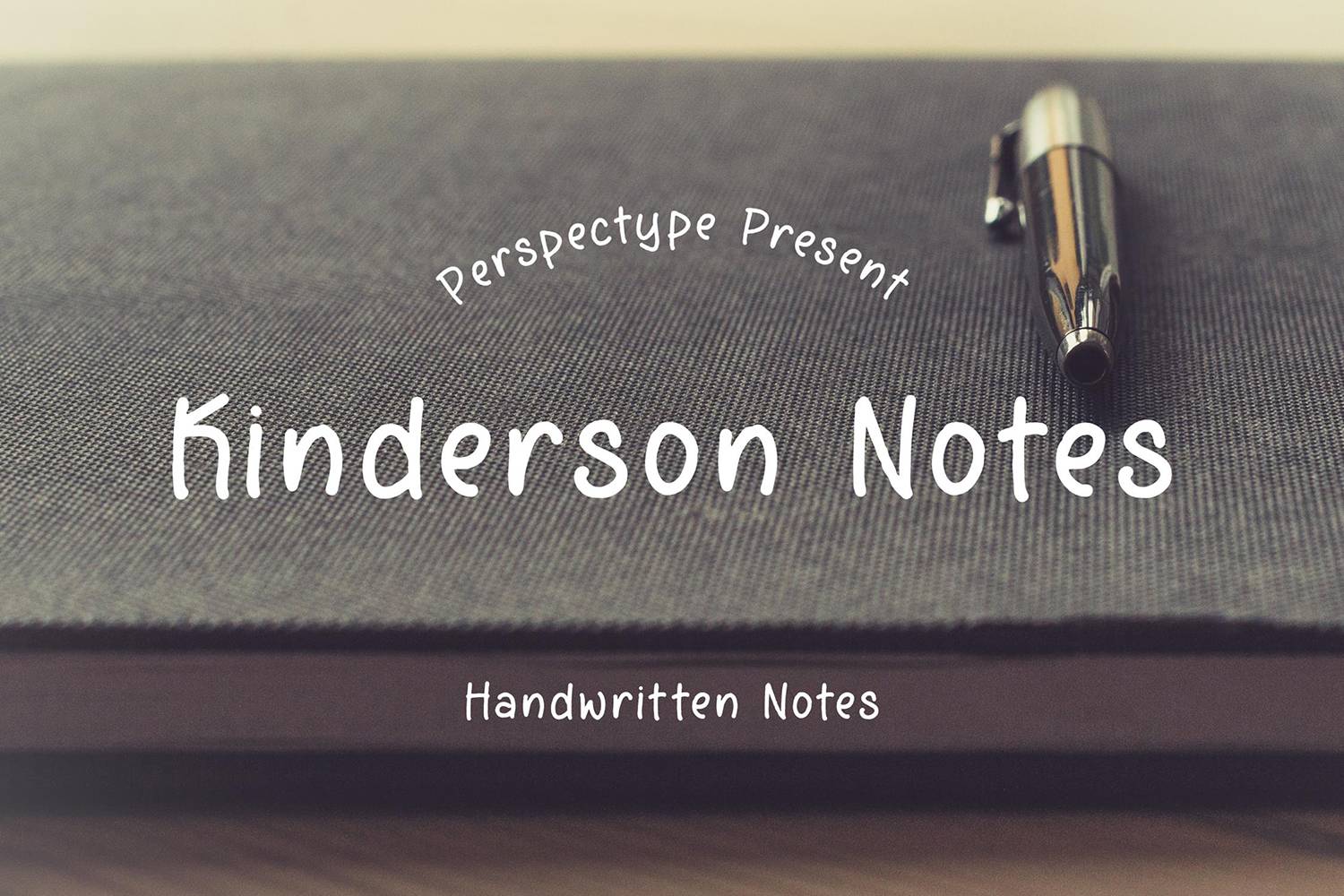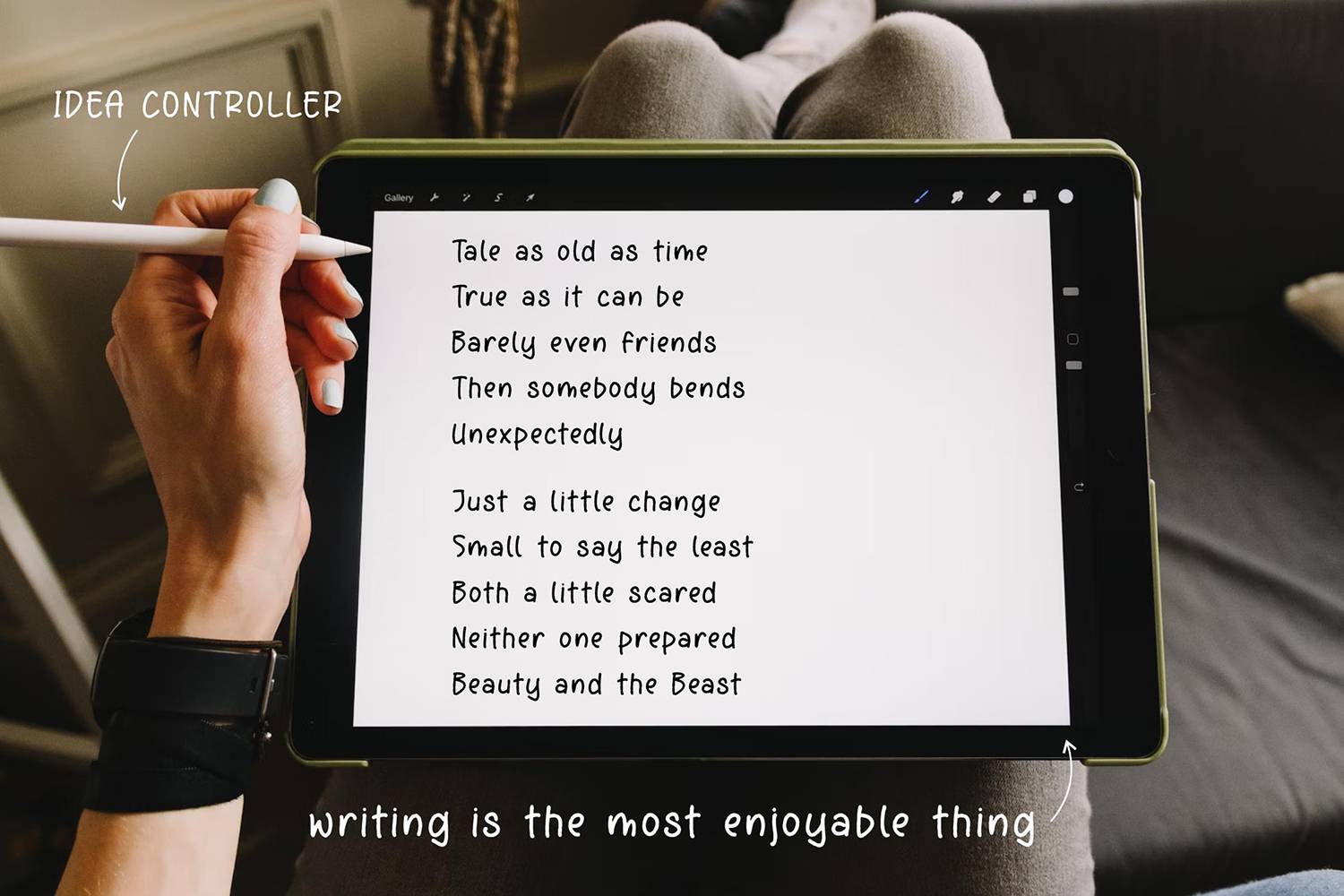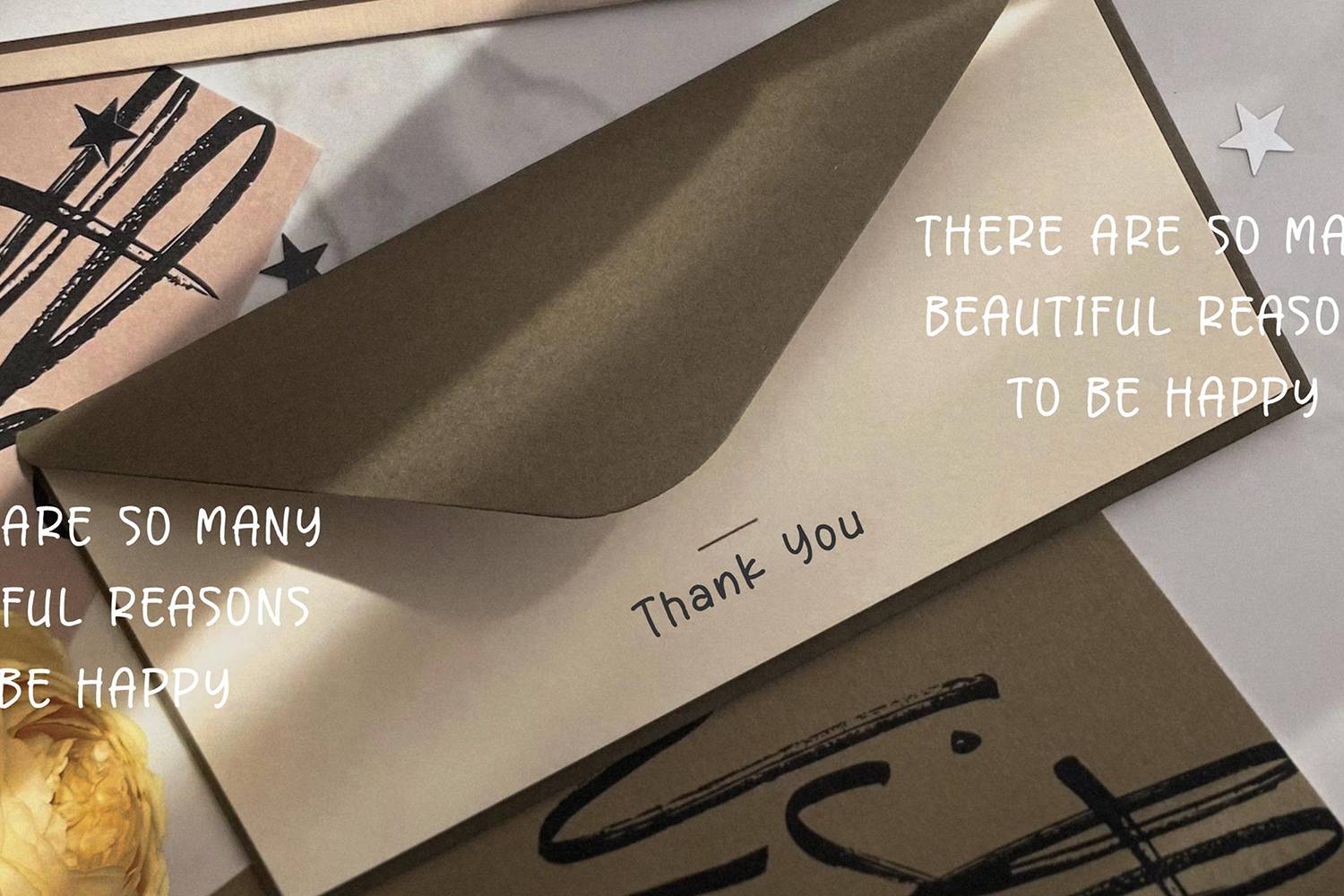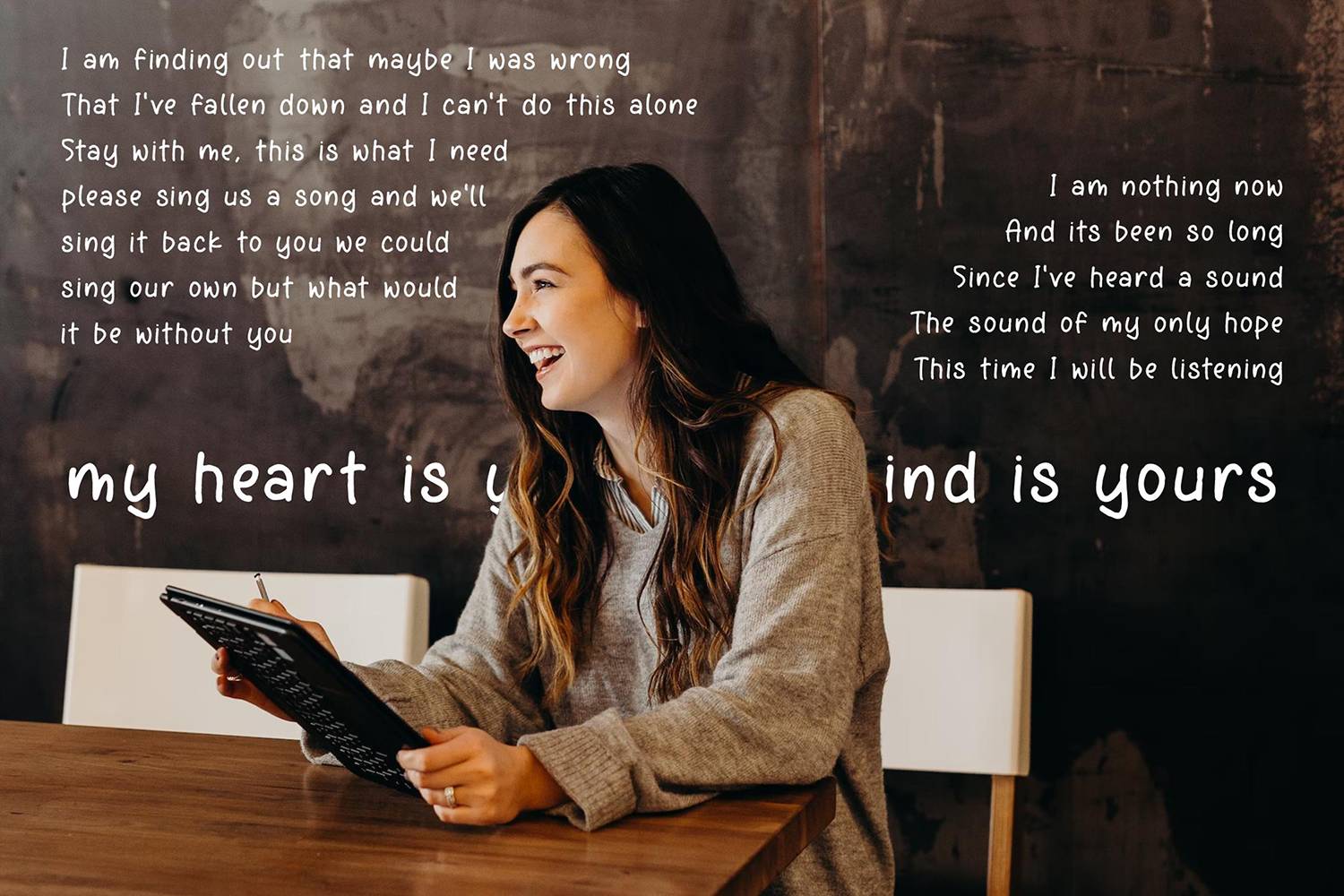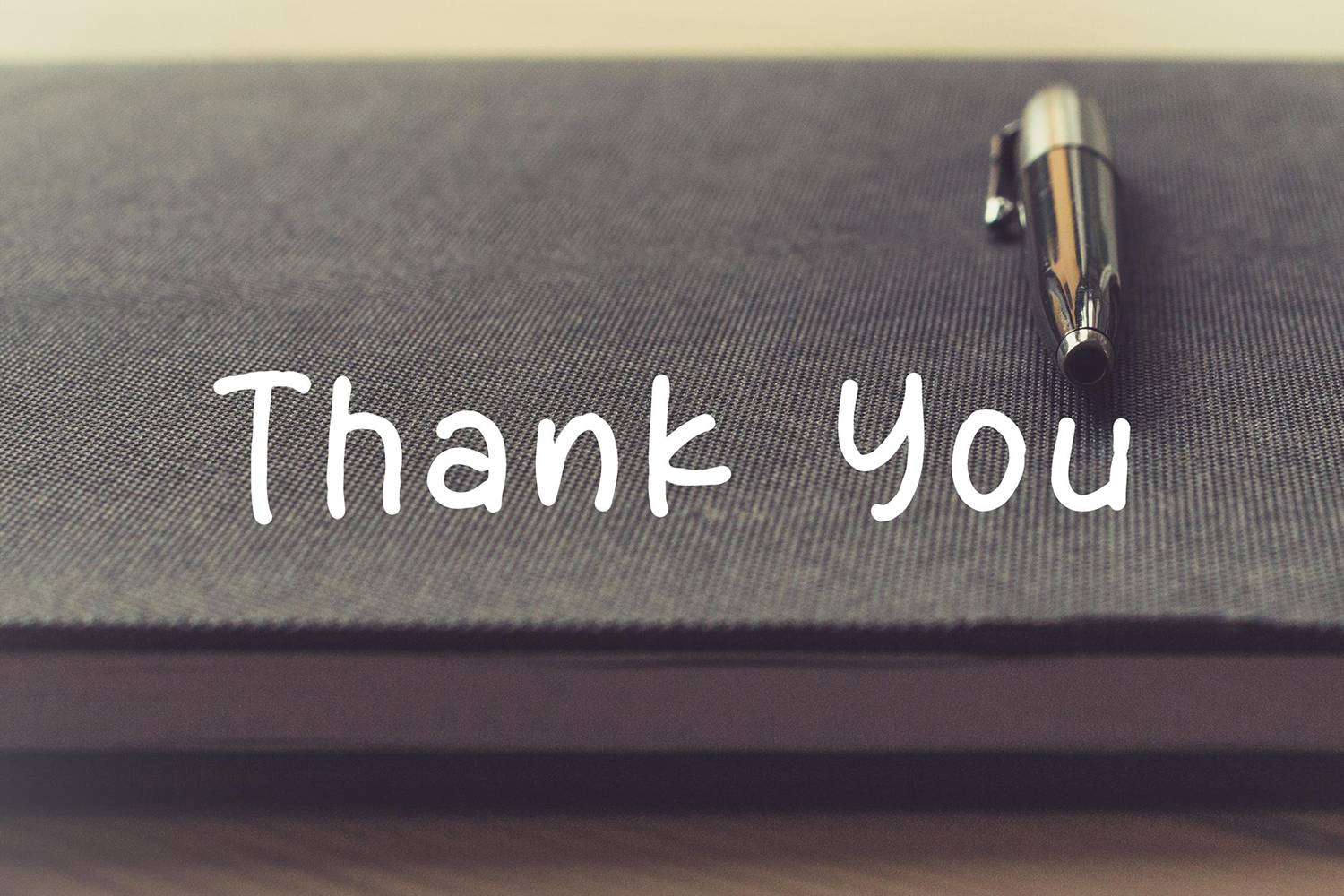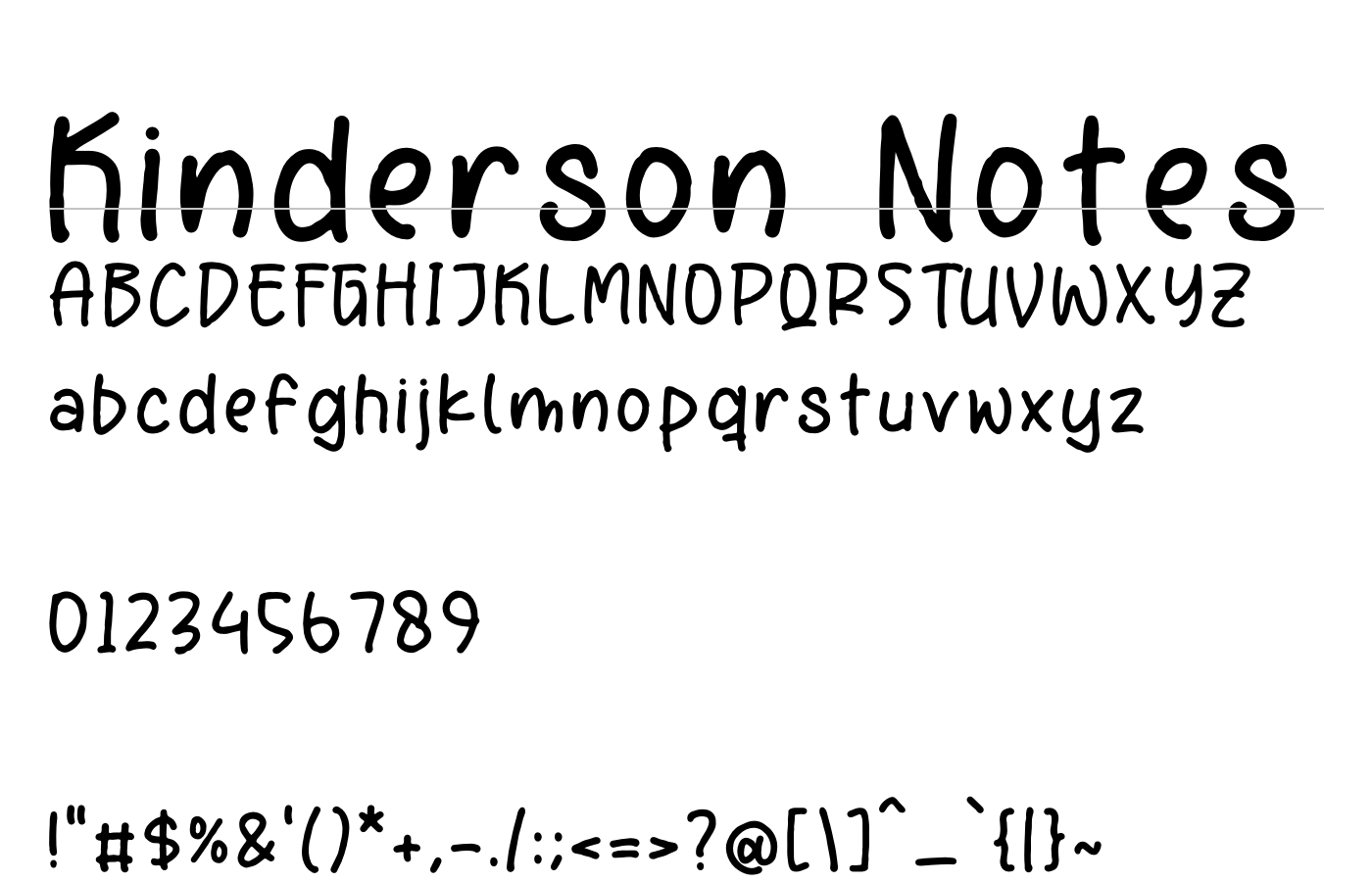
Kinderson Notes is a playful, handwritten sans serif font with a casual and friendly vibe. Its slightly irregular letterforms and moderate weight give it a warm, approachable feel that works well for informal designs like greeting cards, children's books, and personal branding. This font adds a touch of personality and charm, making it ideal for projects that want to convey creativity and friendliness rather than formality.
Kinderson Notes Font
About Kinderson Notes Font